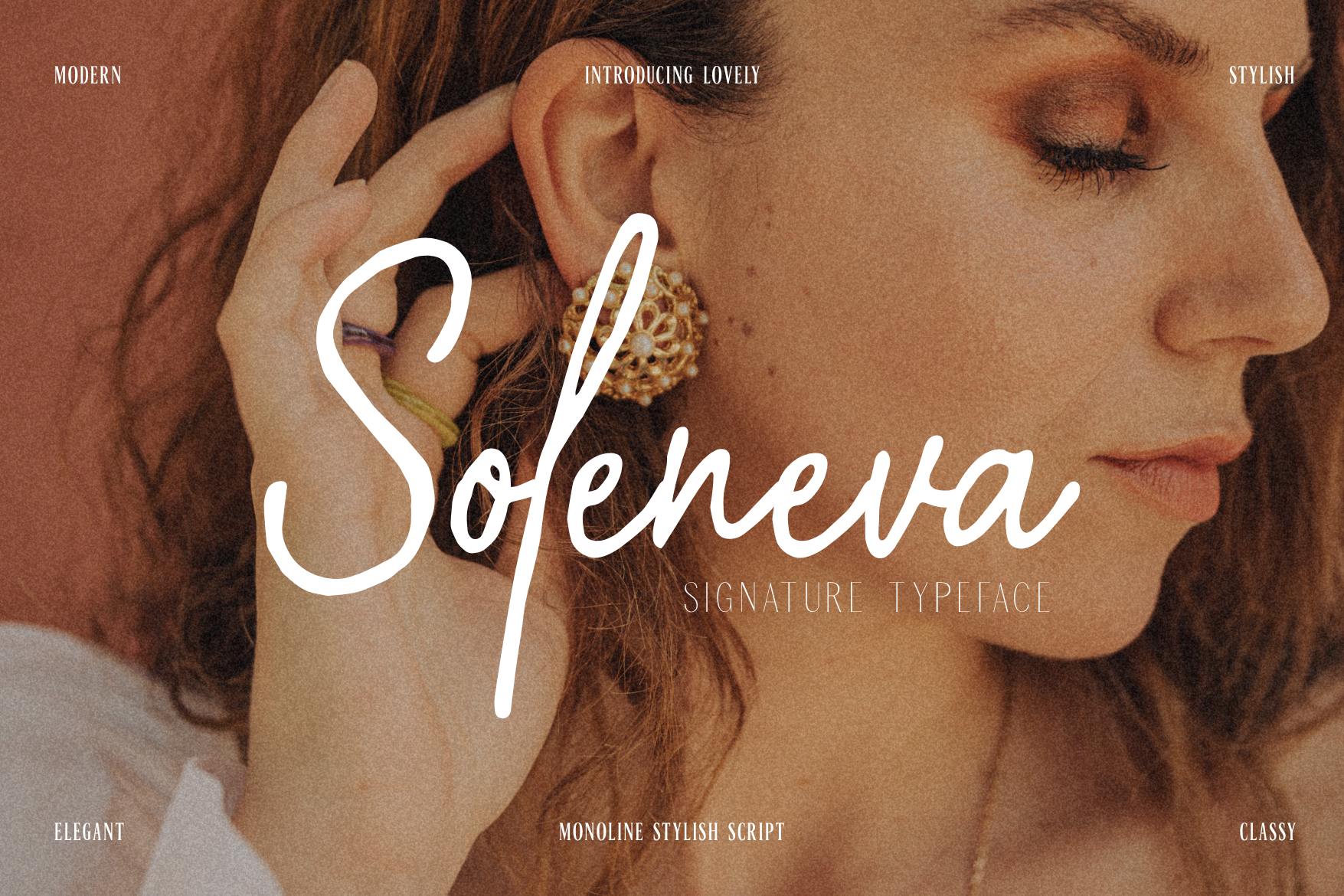
Soleneva - Signature Typeface
Soleneva Signature Typeface – Stylish Monoline Script
Soleneva is a signature-style monoline script designed to bring refined personality into your creative projects. With graceful curves, natural ligatures, and a stylish handwritten flow, Soleneva adds a personal, feminine touch perfect for branding, packaging, editorials, and modern content creation.
- Full set of Uppercase & Lowercase characters
- Smooth Ligatures
- Elegant and modern monoline style
- Clean and readable script with handcrafted ligatures
- Ideal for combining with serif or minimalist fonts
- Designed for timeless, high-end visual identities
- Fashion & beauty branding
- Instagram posts and quotes
- Wedding and lifestyle stationery
- Business cards & product packaging
- Editorials and magazine layouts
- Signature logos and watermarking
Styling Suggestions:
Use Soleneva with natural photo textures, muted tones, or vintage-inspired edits to highlight its organic flow. Combine it with bold serif fonts for contrast or overlay on soft imagery for a luxurious feel.
Every detail in Soleneva was thoughtfully crafted to evoke confidence, charm, and individuality. Whether you’re designing for a boutique brand or a personal passion project, Soleneva helps your message feel as graceful as it looks.
Create with confidence. Express with elegance. Soleneva is your signature.